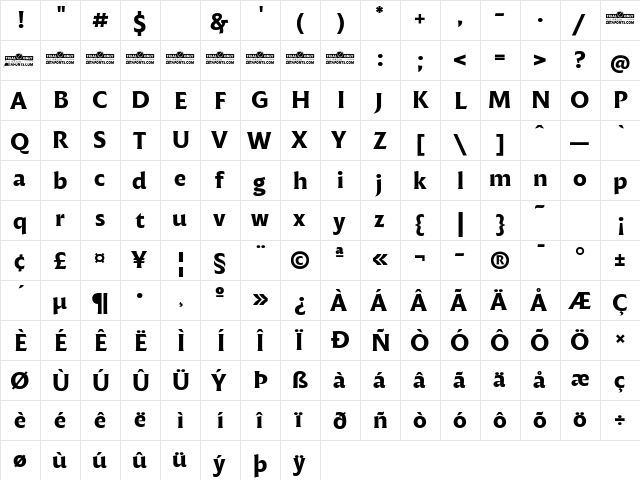
Malik Trial Bold
Bold · Zetafonts Andrea Tartarelli ·
Design Context for Malik Trial Typeface
Malik Trial is a composed and adaptable typeface that performs quietly and consistently across a wide range of design contexts. Its bold stroke weight gives it real presence on the page.